LettError is a studio for type design and typography, based in The Hague, Netherlands. Making headlines since 1989.
LettError has been producing category defying designs since the early days of digital type. Curiosity about why things are done as they are, combined with a dedication to developing new tools, has resulted in a diverse body of work that pushes the boundaries of what type can be and do.
The groundbreaking ideas for the Randomfonts and all subsequent irreverence was in collaboration with Just van Rossum.
LettError is not a portfolio with IP and trademarks, managed by private equity after a leveraged buy-out. This is a busy studio for new type design and typography, based in The Hague. People making stuff for other people? Owned and operated by Erik van Blokland. All fonts and trademarks owned by LettError unless specifically mentioned otherwise.
Animated colorfield, calculated with MutatorMath, a Python library for complex type interpolations. But also useful for abstract motion.
Animated digital V-cut in Blender, with Lars van Blokland. For the book “Lettercarving for type designers” by Françoise Berserik.
Critical reception for Randomfonts
Clippings from the time when a freestyling PostScript printer was somehow world news.
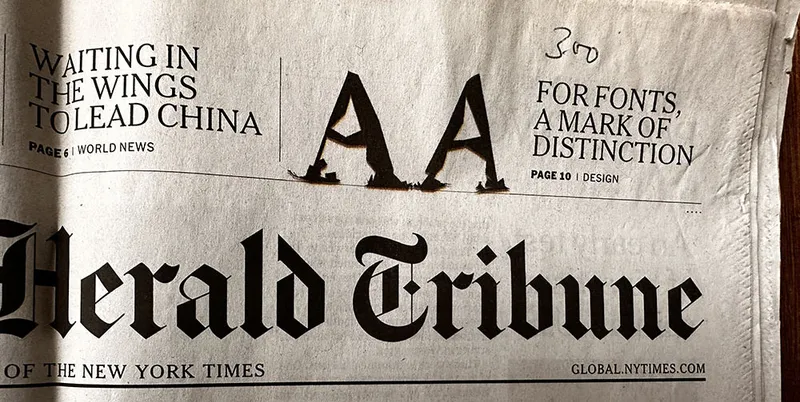
Museum of Modern Art in New York: “The sameness of type seems an arbitrary thing that we can do away with in certain cases.” In order to achieve this effect, they substituted the programming commands “lineto” and “curveto” in the PostScript code (PostScript is a computer program that describes what the outlines of letterforms are designed to look like) with their own command “freakto.” “Freakto” causes a letter to be randomly generated with erratic outlines.” LTR Beowolf in the permanent MoMA design collection
Emily King, Frieze: “While Beowolf and their subsequent random fonts have broken with current typographic convention, LettError view the standardisation of letterforms that resulted from mechanical typesetting not as typographic perfection, but merely as a phase in a much longer history of written communication.” Frieze, 1995. Profile on LettError
Emigré #18: Type-Site: “While working on Randomfont we became aware that if we treated typefaces as computer data, instead of fixed letterforms, we could create some very bizarre systems.” Article text. / See the whole magazine at the LetterForm Archive
Robin Kinross: “LettError has investigated how things might change, and how you might set up a system that accomodates and provides useful change. One can see this even in the progression from Beowolf, which had an excess of variation, and to no great effect to the Flipper fonts that followed.” LettError: Nypels Prize. Unjustified Texts, perspectives on typography. Hyphen Press, 2002. New release at Editions-b42
David Berlow: “After letting each apprentice make my Laserwriter cry for its motherboard, I taught them what I could, about output that could be designed. And Beowolf, as it became called, faded into a typo-technical dream-time, waiting for the united motherboards of planet earth, or something, to lighten up!” Review of Beowolf and BeoSans on Typographica in 2008
David Crow: “Their aesthetic clearly celebrating the handmade and the physical, LettError harnessed digital technology to create letterforms by art-directing the multiple possibilities programmed into their bespoke software engines.” Eye Magazine, Winter 2008
John L. Walters, Fifty Typefaces That Changed the World, 2013: Beowolf, true its almost-namesake Beowulf, remains an uncaged beast, and in its ingenious subversion of digital code the typeface anticipates the process-driven and interactive design of the twenty-first century.
Erik Spiekermann, Wired Magazine, 1995 You made the first “random” typeface, called Beowolf, by replacing the commands “lineto” and “curveto” in the PostScript code with your own command “freakto”. The new command calls up a random generator that makes the character outlines irregular. When you created Beowolf, were you trying to prove something, or was it just a joke? Article
Willem Velthoven, MediaMatic, 1990: Seemingly trivial and maybe aesthetically not very pleasing. Beowolf is of important polemical value. Van Blokland and Van Rossum proved it possible to part with the rigidness that has characterized type since Gutenberg. If the forms of a character can be modulated by a random figure it also becomes possible to let a character interact with its environment, be it either typographical, semantic or semiotic. Article